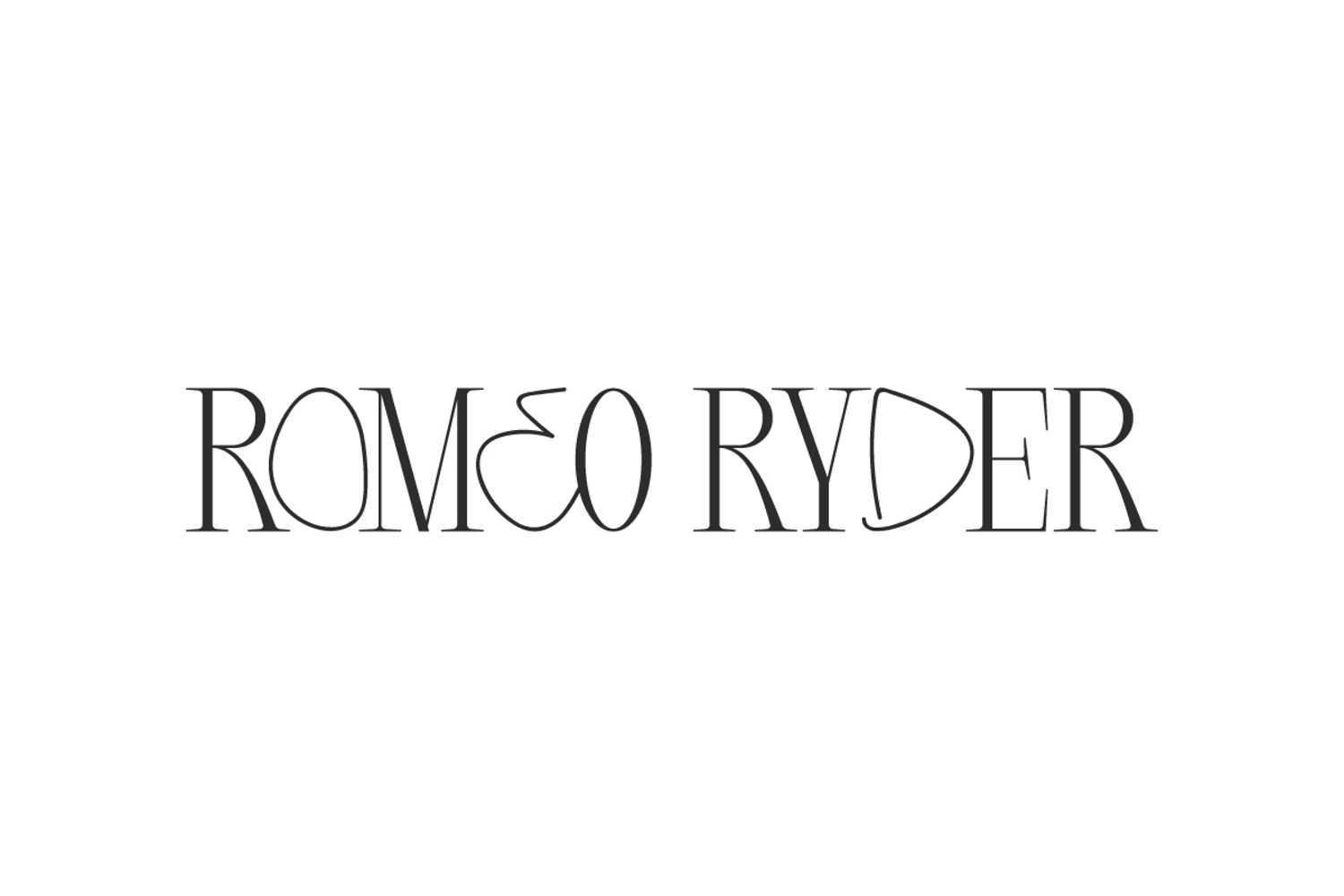
Romeo Ryder Font
Romeo Ryder Font is a modern double styles typeface with a unique twist inspired by slab serifs but made sleek and simple. Created for badges, blogs, branding logo, brochure, flyer, greeting card, illustrations, invitation, mockup designs, labels, poster, quotes, signage, watermarks, web design, and some other works.
Romeo Ryder Font contains a complete set of ALL CAPS basic characters for both Uppercase and Lowercase but different types, Numbers, Symbols, and Punctuation. This font exudes a luxurious feel with sophisticated elegance and charm. It can be combined with other font types and see how beautiful it will look. It works well in both large and small sizes so it will be very versatile for boutique, fashion, jewelry, keepsakes, resort, spa salon, wedding organizer, and more.